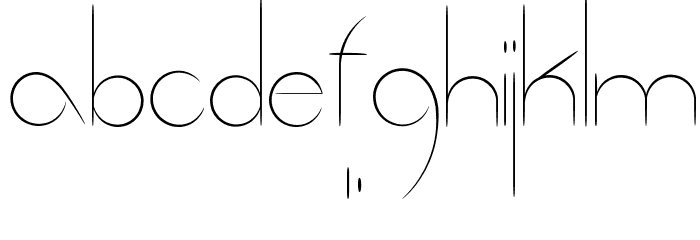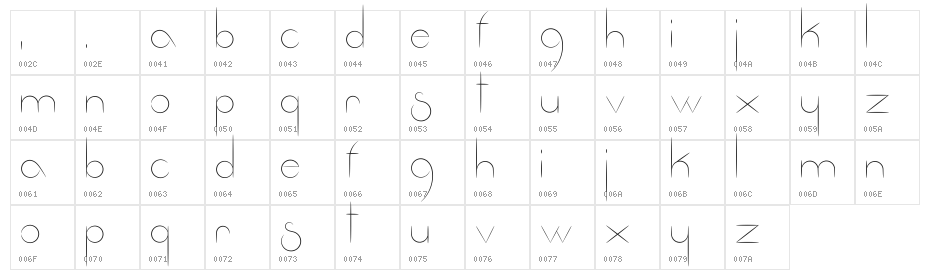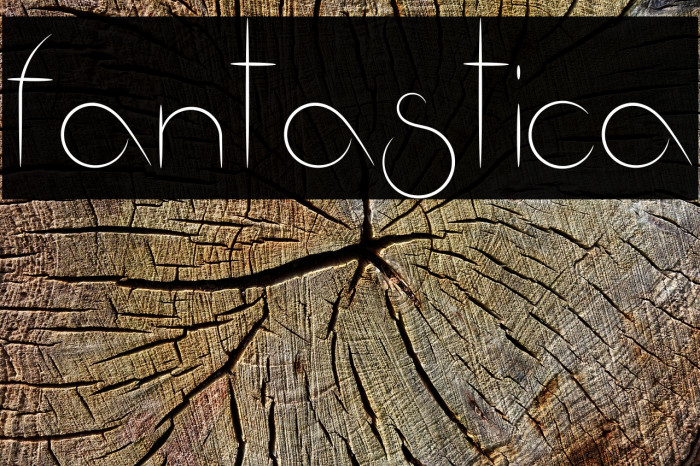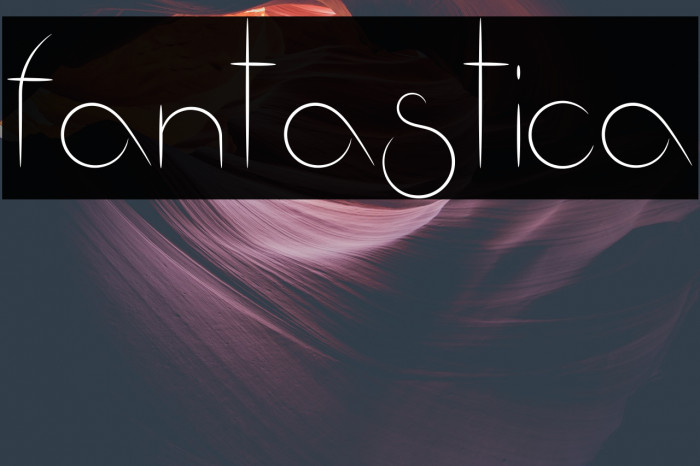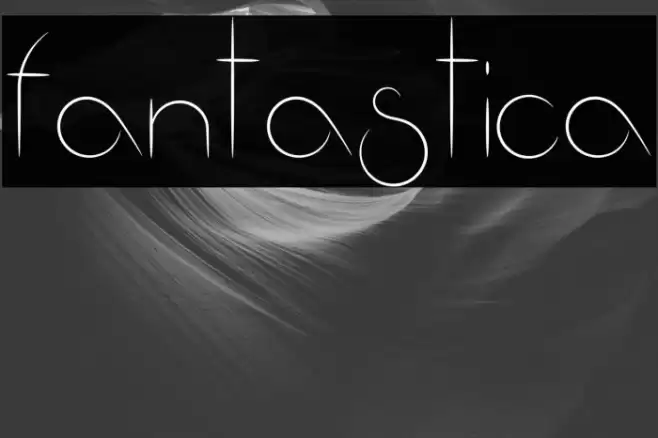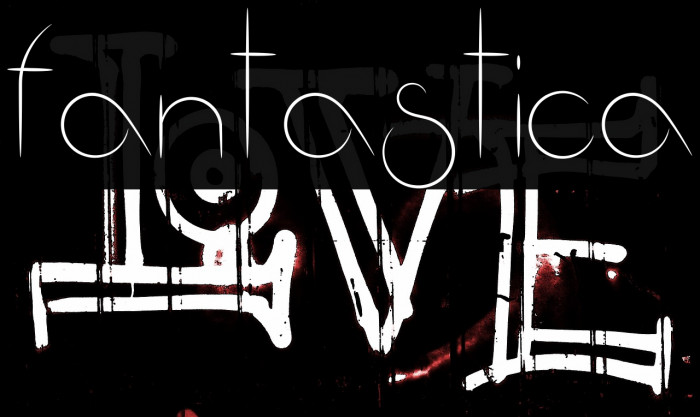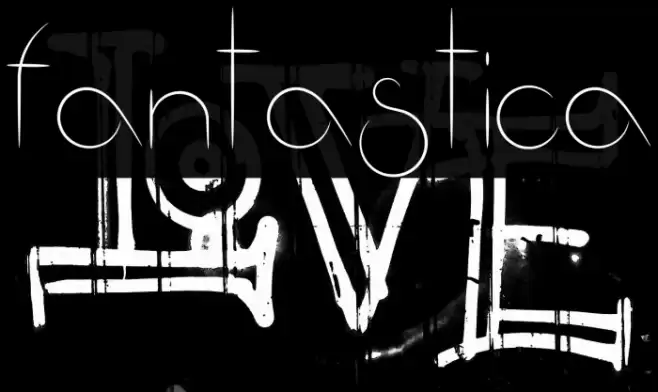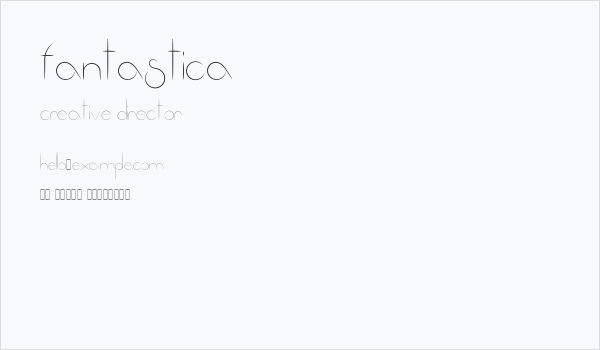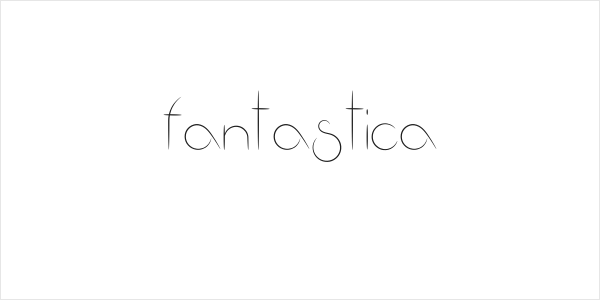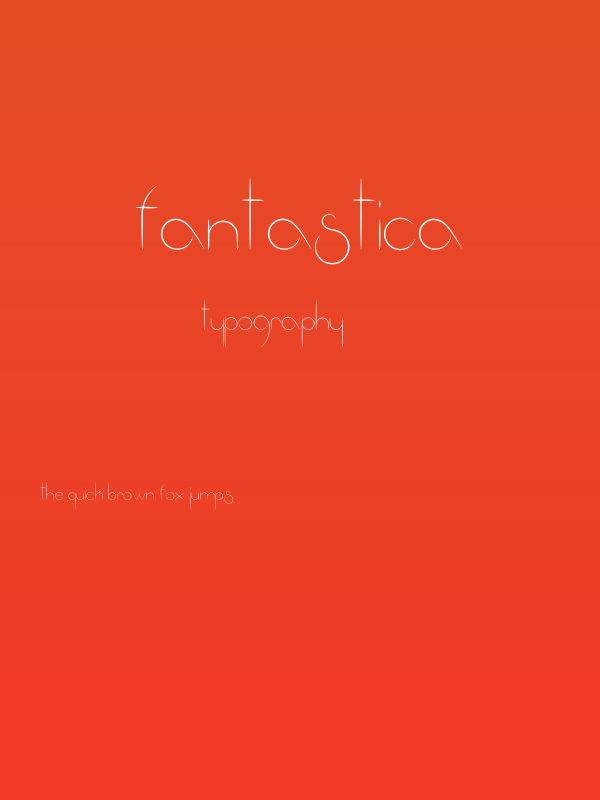
Fantastica Font
Fantastica Description
This font features an ultra-thin, elegant design with elongated ascenders and descenders, creating a sophisticated and airy appearance. The characters are crafted with a high level of precision, showcasing a modern aesthetic with a touch of minimalism. The strokes are consistently thin, contributing to a sleek and refined look. The font's unique style is accentuated by its tall, narrow letterforms, which give it a distinctive and stylish presence. It is particularly well-suited for projects that require a contemporary and fashionable touch.
| Proposed Projects | Ideal for fashion magazines, luxury branding, high-end product packaging, and modern art posters. |